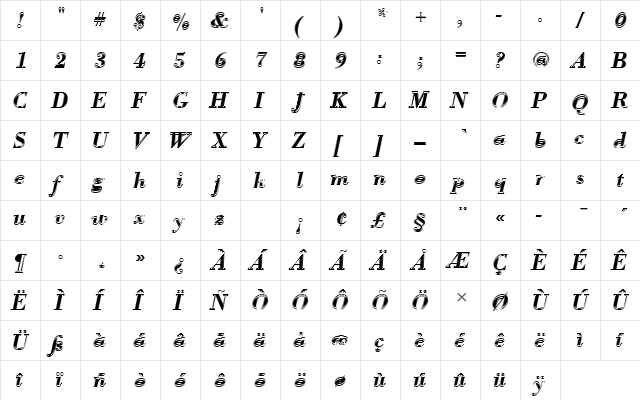
BodoniAntTDemBolItaIn1 Regular Font Preview
BodoniAntTDemBolItaIn1 Regular
Design Context for BodoniAntTDemBolItaIn1 Typeface
BodoniAntTDemBolItaIn1 offers clean, dependable letterforms without strong stylistic allegiance, making it a practical choice for designers who need flexibility.